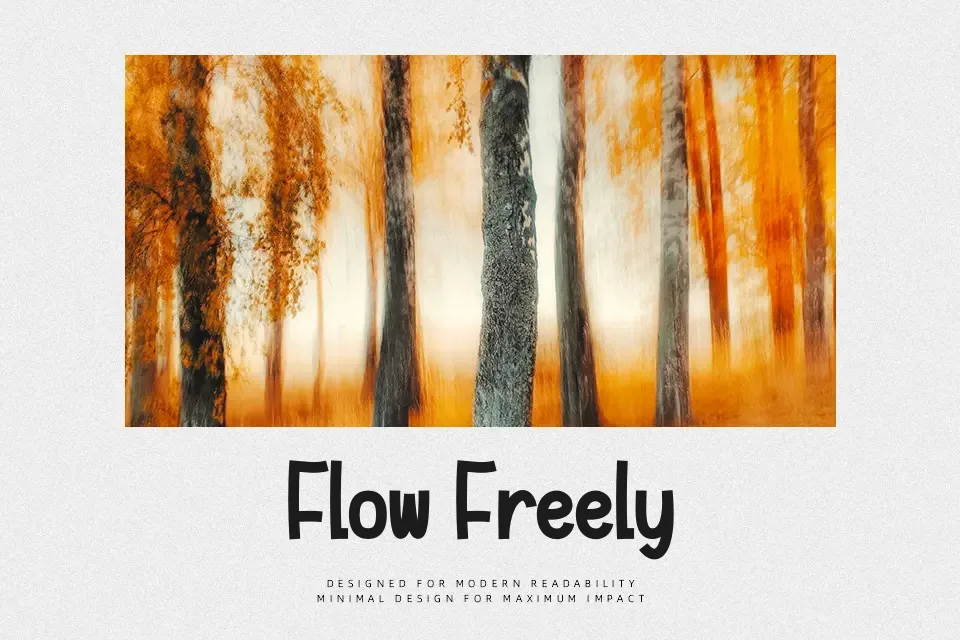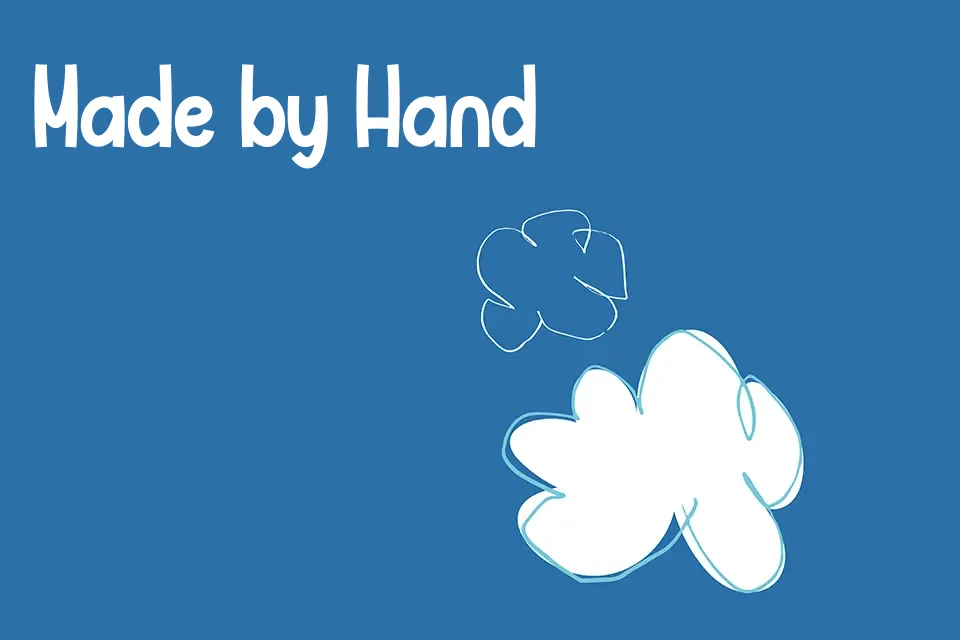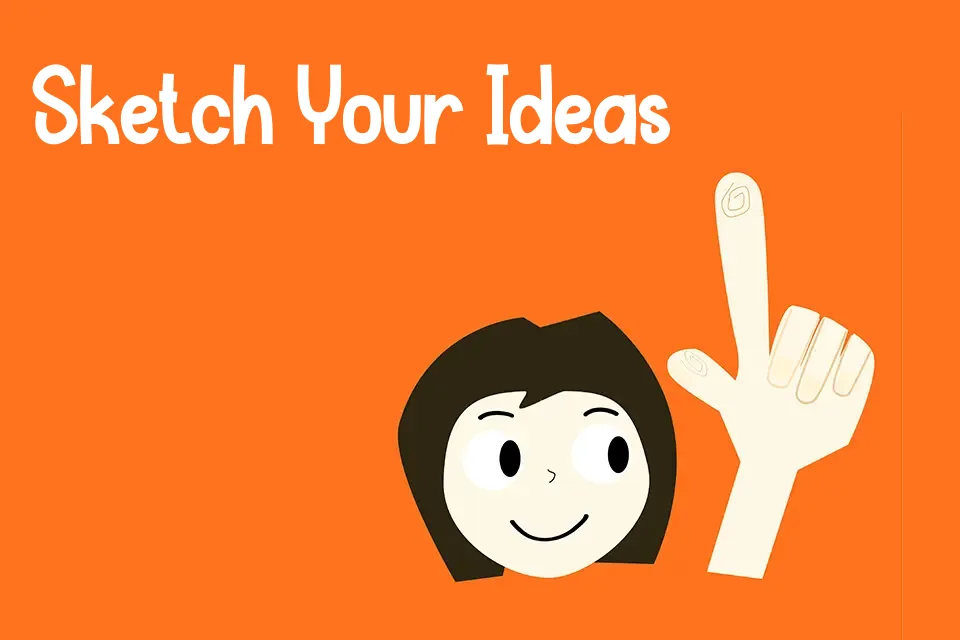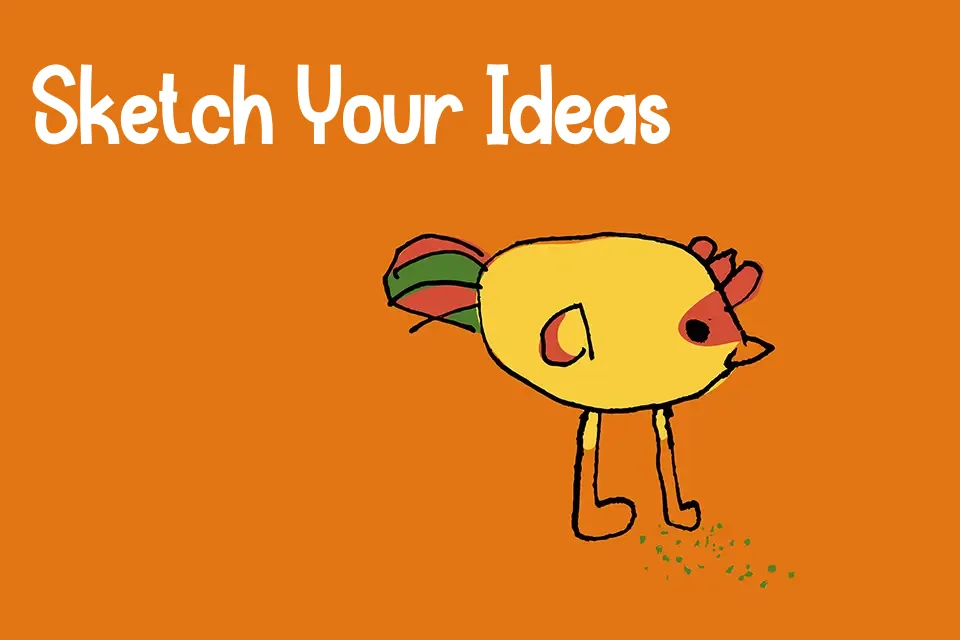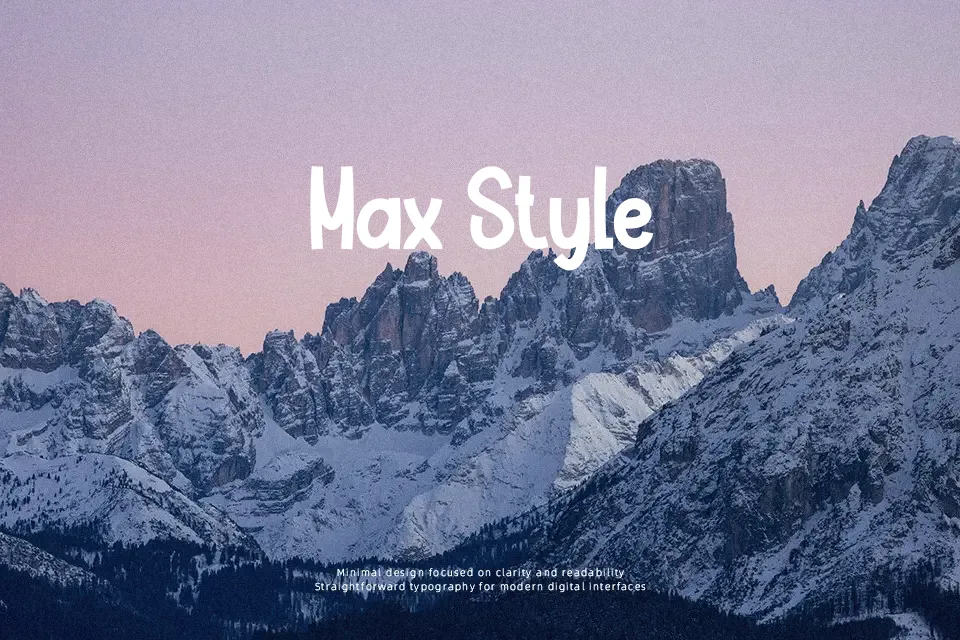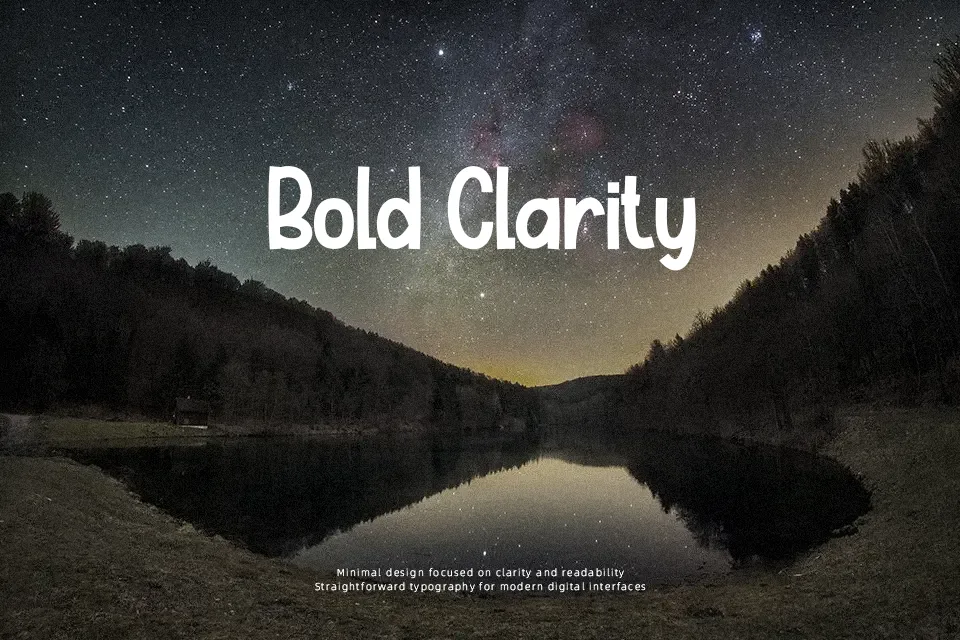
Pumpkin Handmade Font
Pumpkin Handmade Font immediately establishes a casual and energetic rhythm through its bouncy baseline and organic stroke variations. The letterforms display a natural, uneven proportion that mimics authentic handwriting, complete with slightly varied stroke weights and open counters that keep the text legible at medium sizes. Its dynamic, unrefined structure performs exceptionally well in expressive display settings like social media quotes, creative packaging, and informal branding. The loose spacing helps maintain clarity in larger headlines, though the irregular alignment and decorative handwritten quirks reduce continuous reading comfort. Consequently, this typeface becomes much less effective in dense paragraphs or small interface labels where structured alignment is necessary.
social media graphics, casual product packaging, children’s book covers, informal brand logos
continuous paragraph text, formal corporate reports, small interface labels, dense editorial layouts
Perfect for branding, kids, and logo, with a creative and display style.